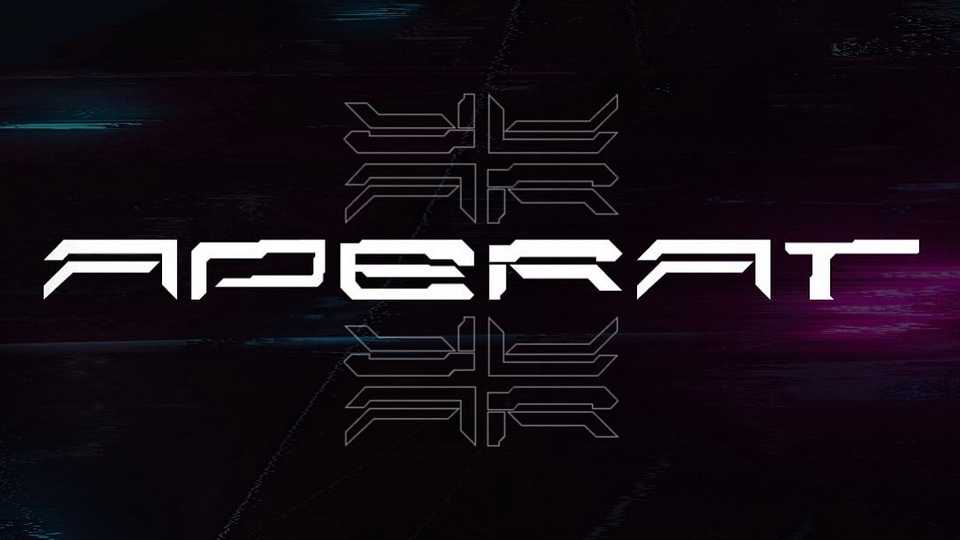
Download Aperat font, a Cyberpunk inspired display typeface. The whole font is created in a futuristic look. Every letter of Aperat has the same width so the font is perfect for vertical typography.
Designer: Luis H. J. Rapp